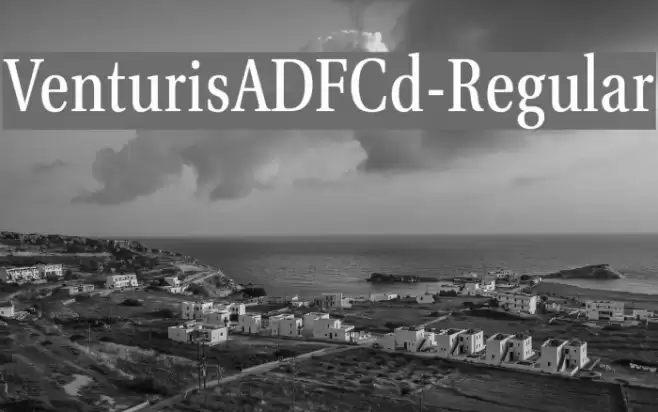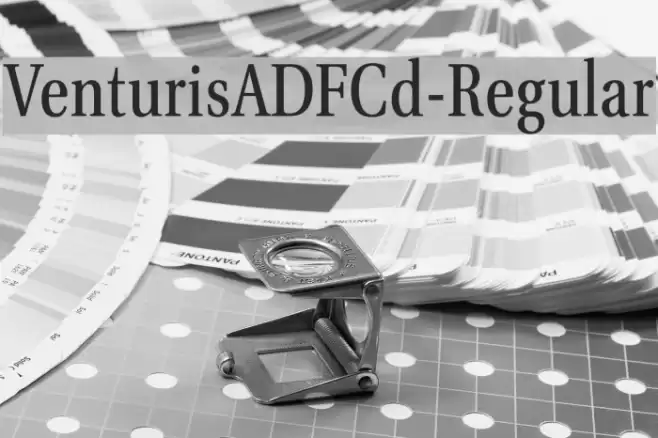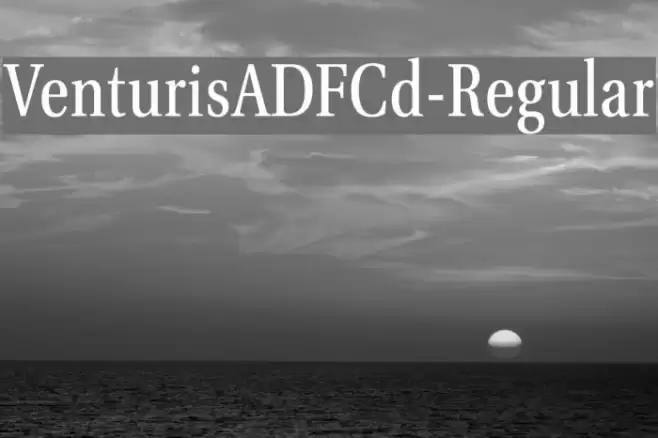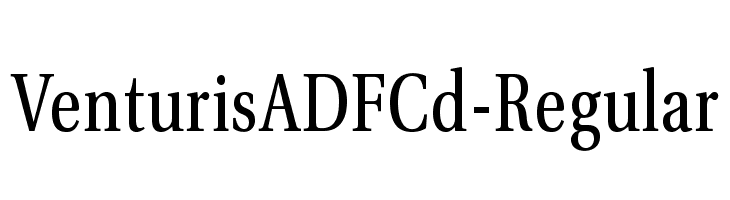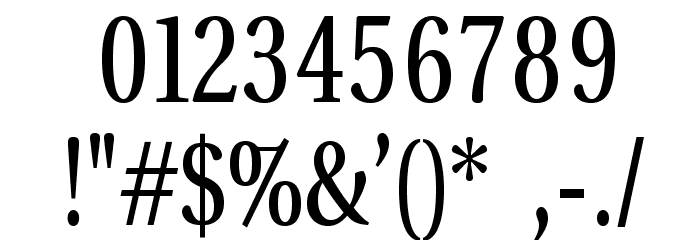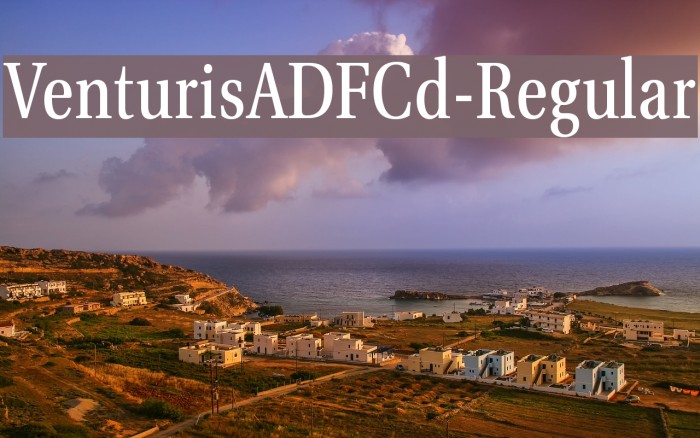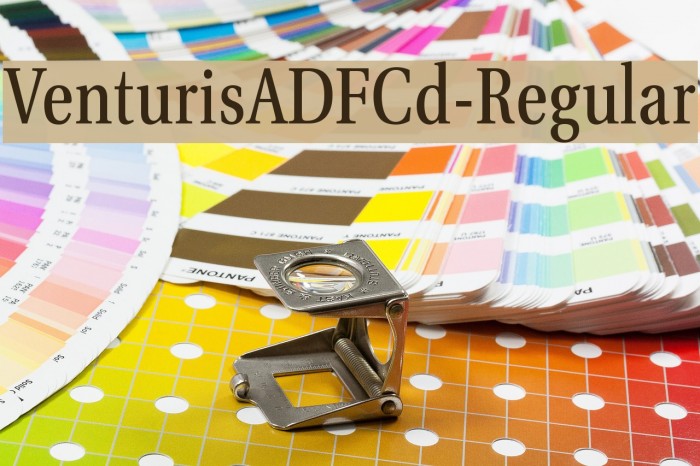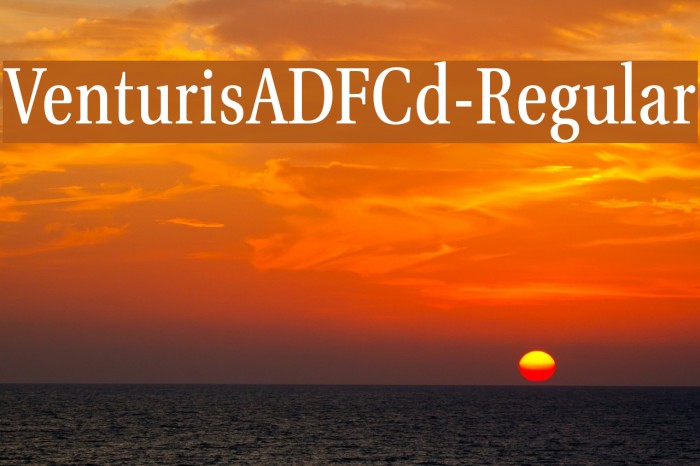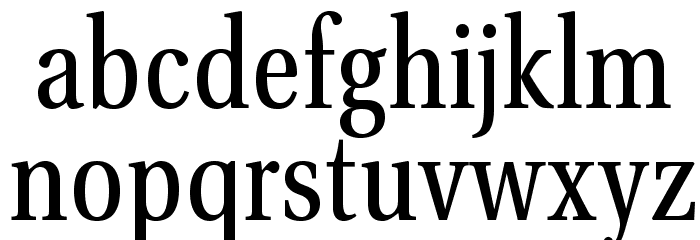
VenturisADFCd-Regular Font
VenturisADFCd-Regular Description
This font features a classic serif style with elegant and refined strokes. The uppercase letters are bold and commanding, while the lowercase letters maintain a consistent and harmonious flow. The numerals are clear and easily readable, making them suitable for various applications. The special characters are well-designed, ensuring they integrate seamlessly with the rest of the typeface. The overall appearance is sophisticated and timeless, making it ideal for formal documents, editorial design, and branding projects that require a touch of elegance.
A classic serif font with elegant strokes and a timeless appearance from Uncategorized fonts.
- Proposed Projects: Ideal for editorial design, formal documents, branding, and any project requiring a sophisticated touch.
- Overall Style: Classic